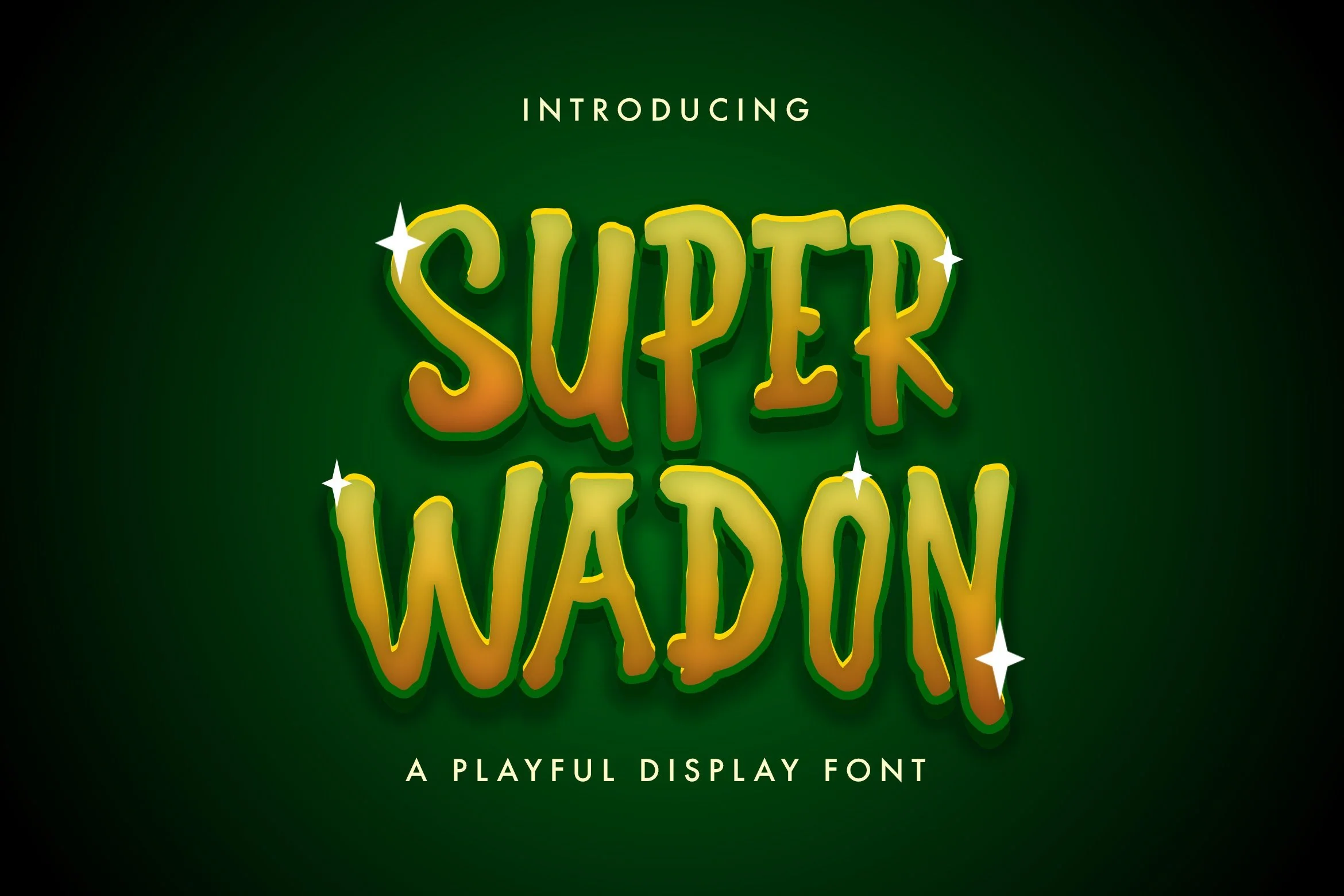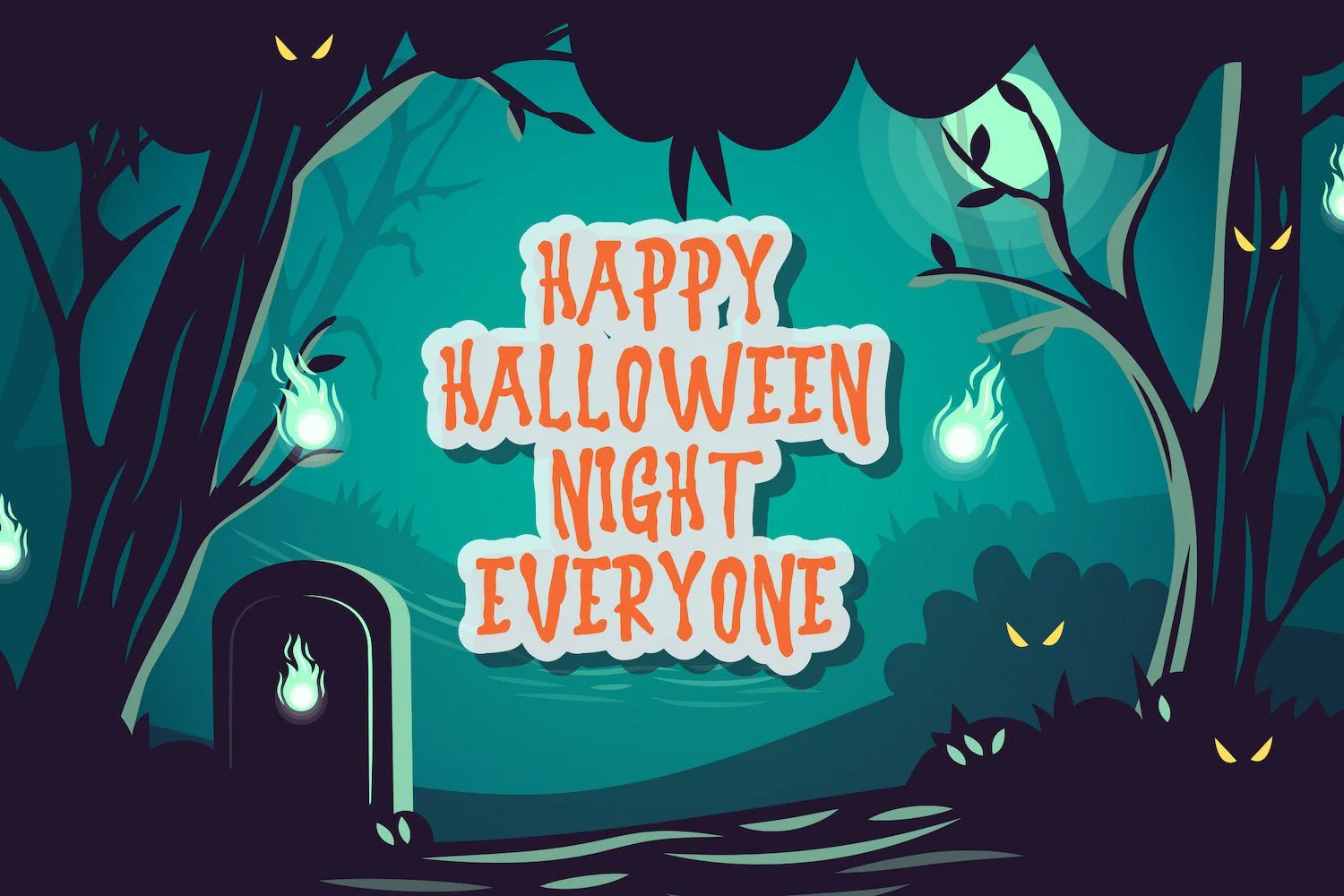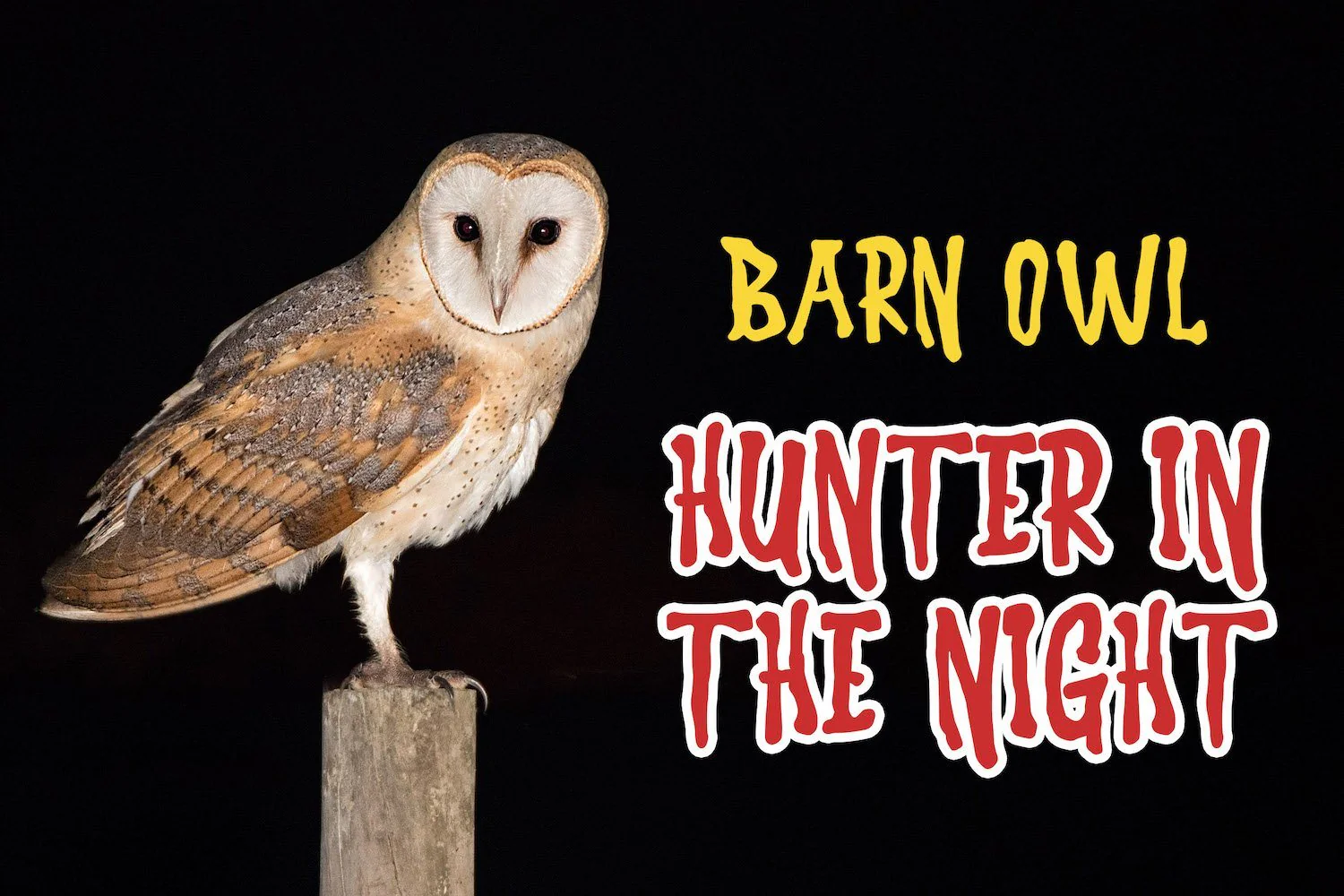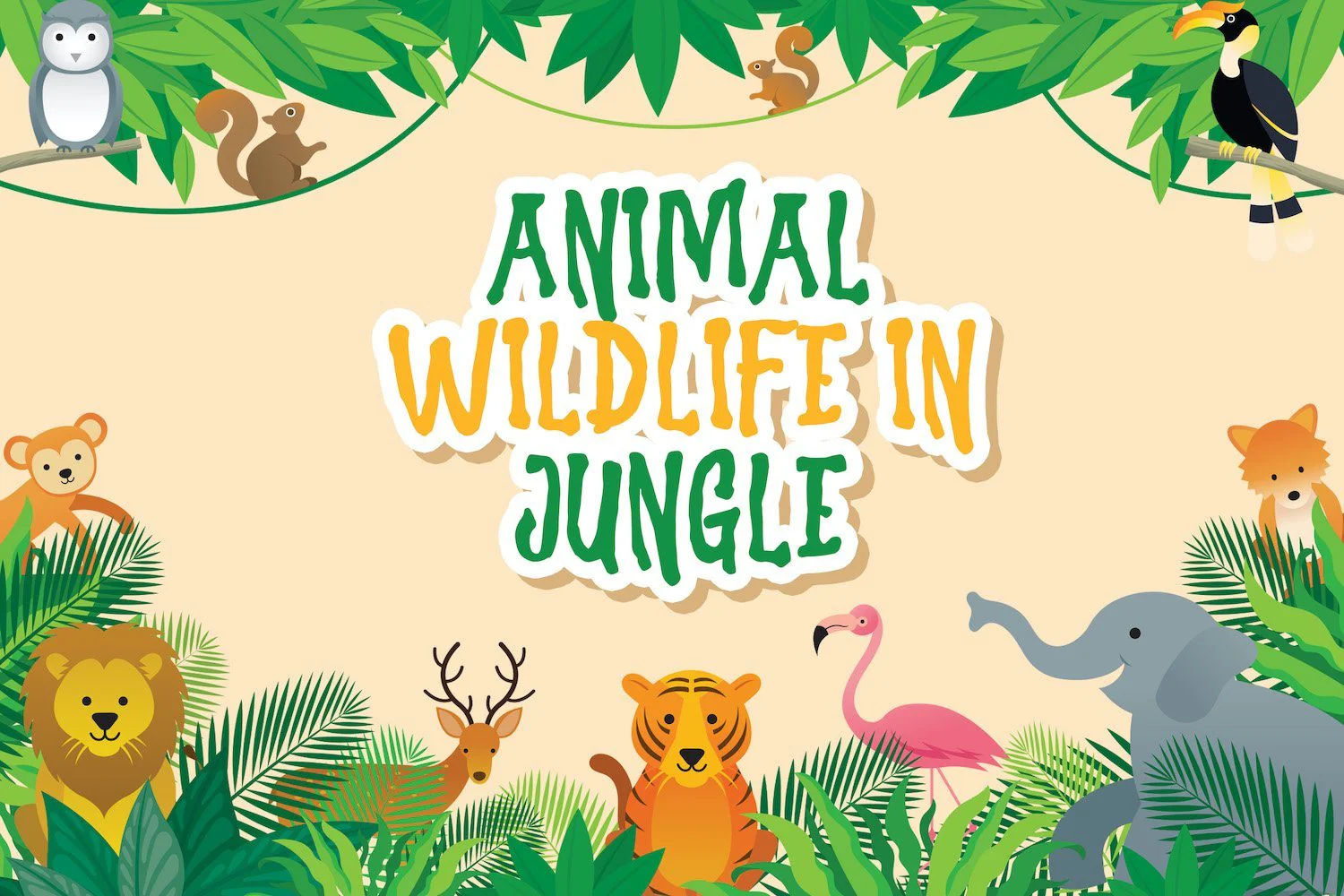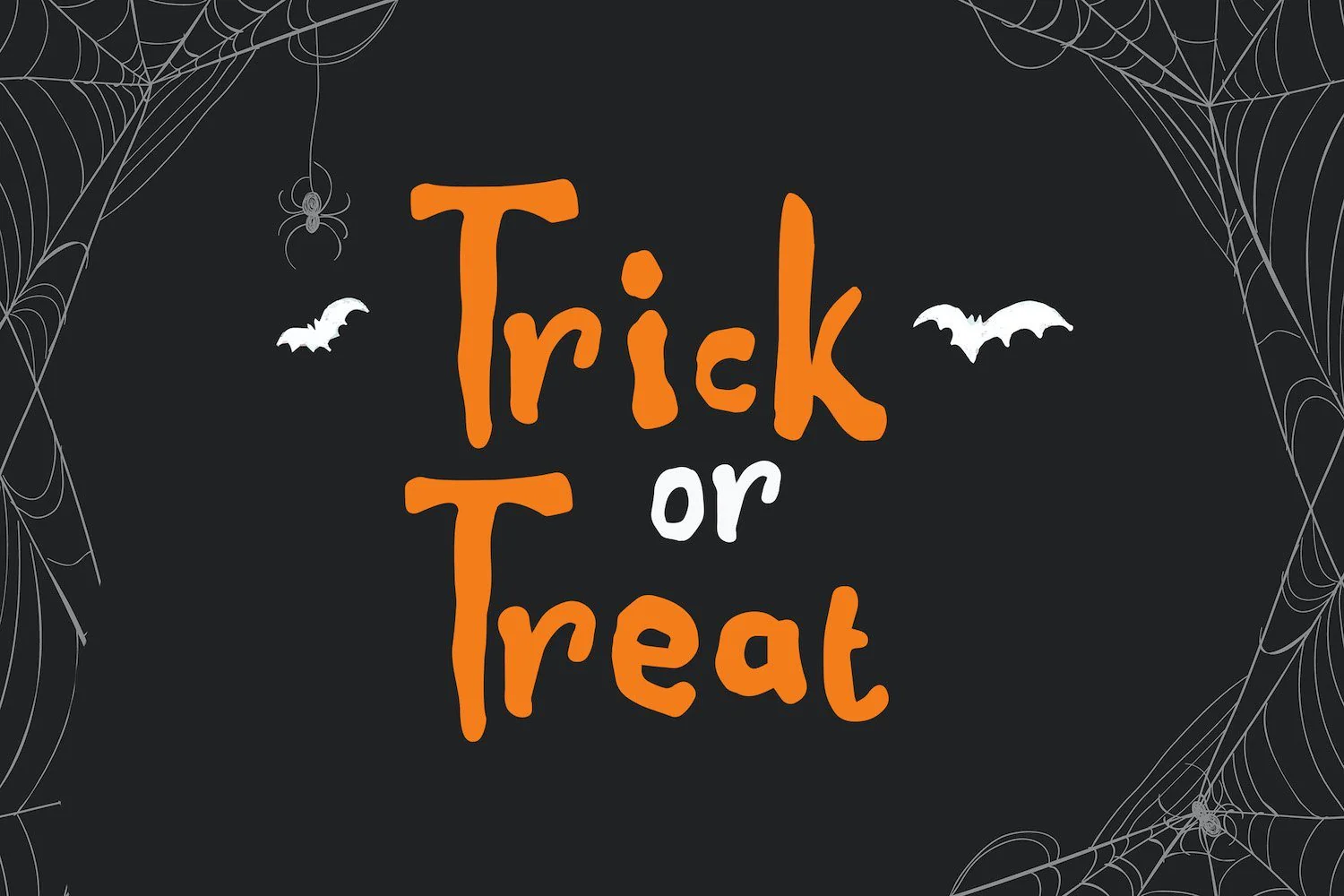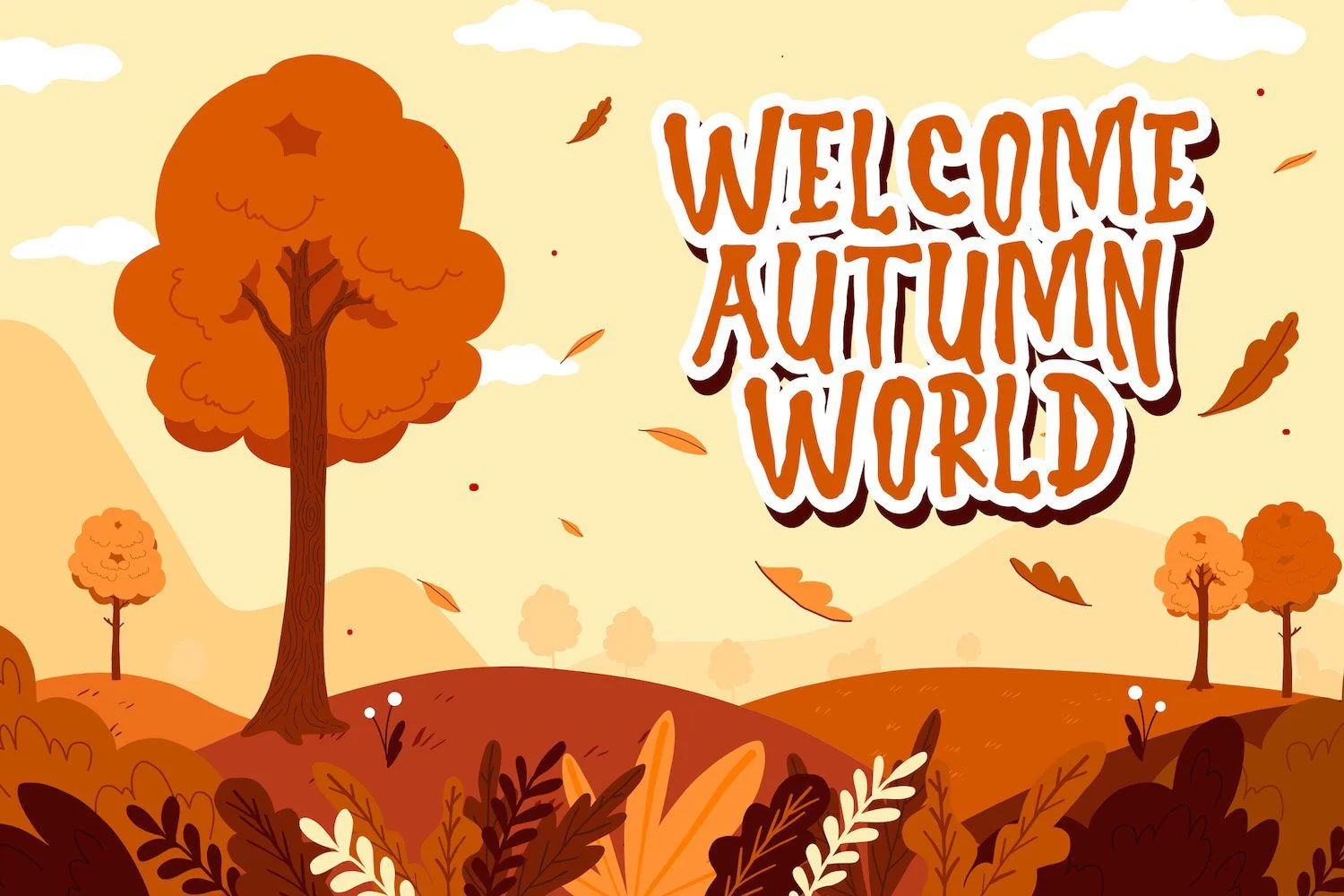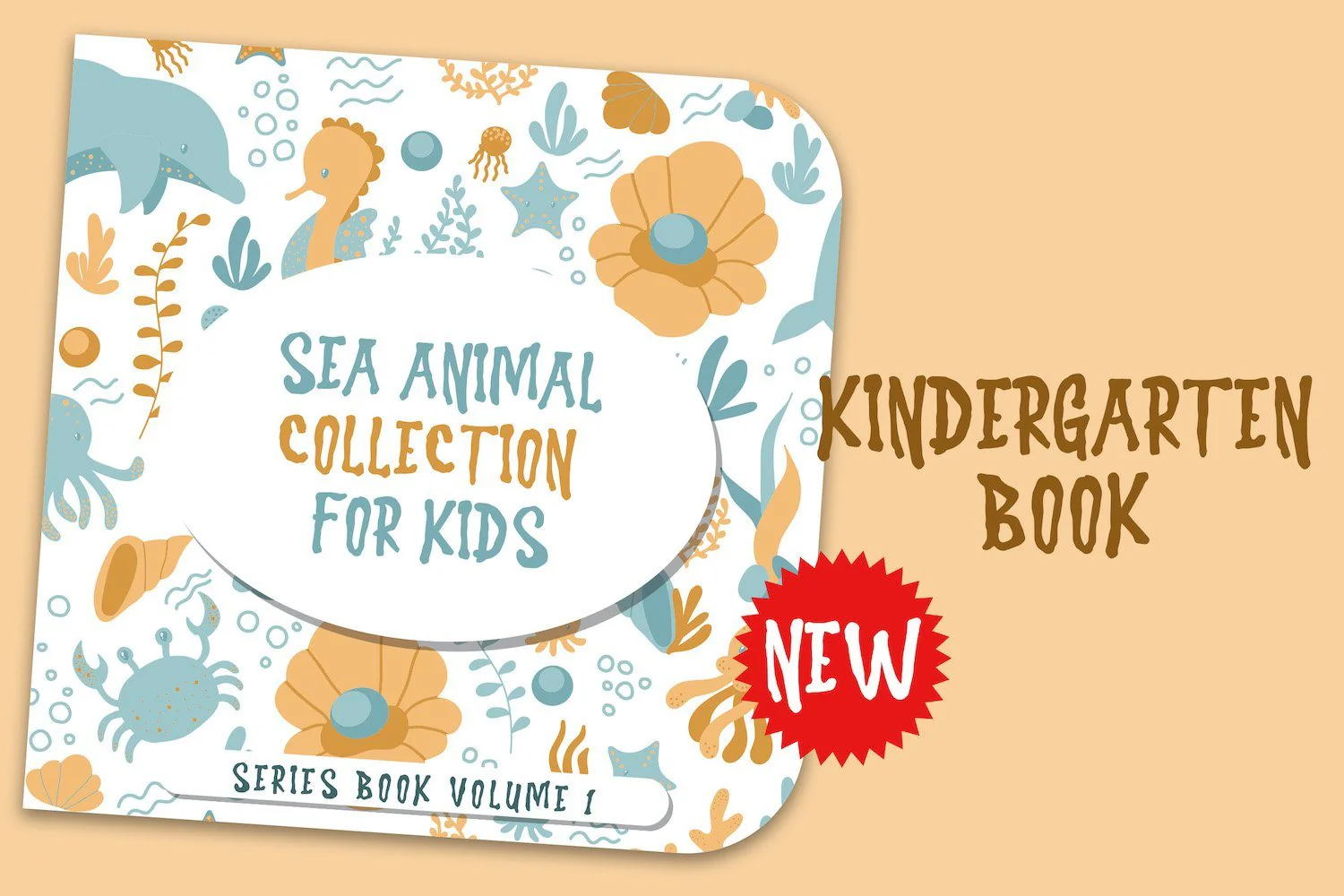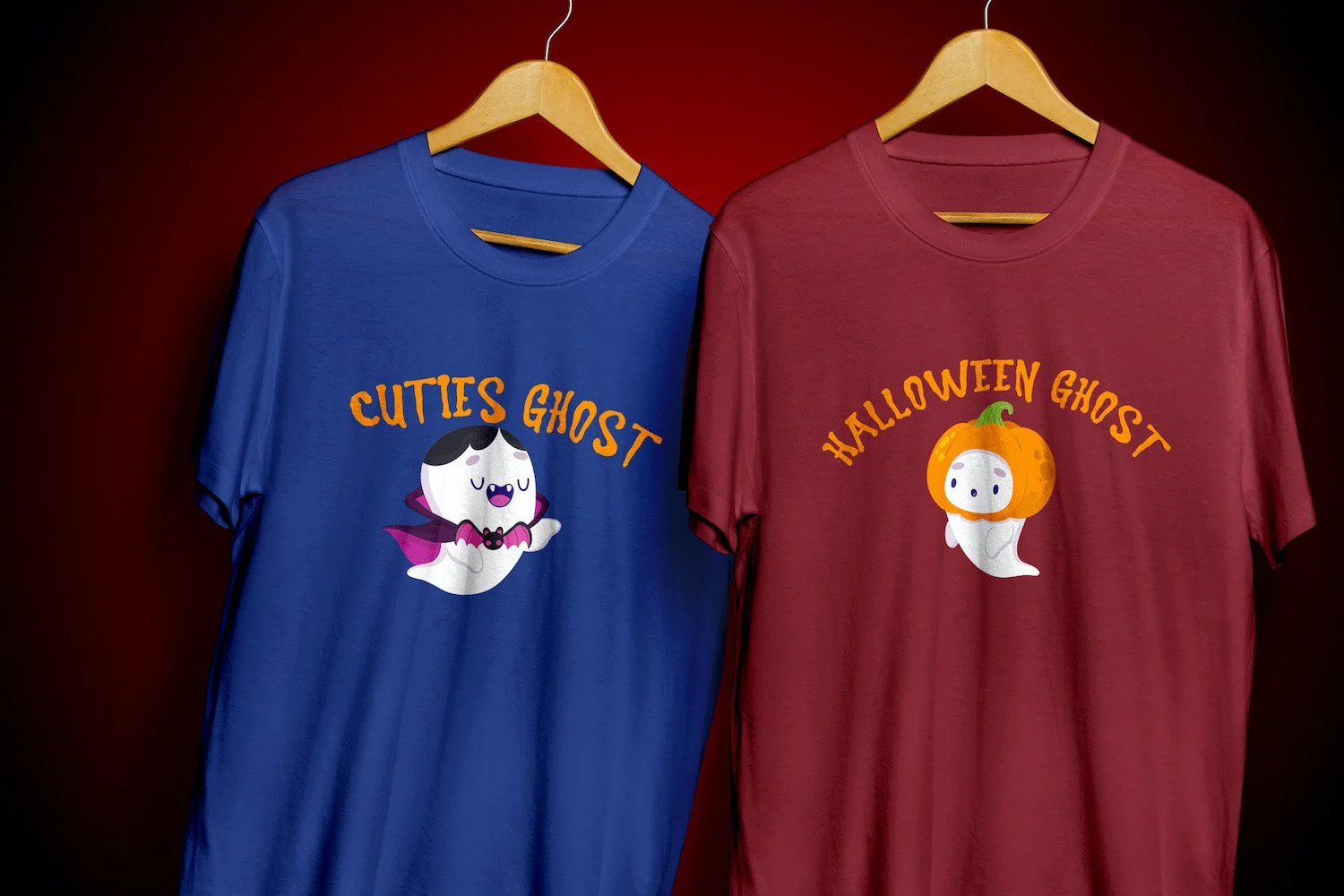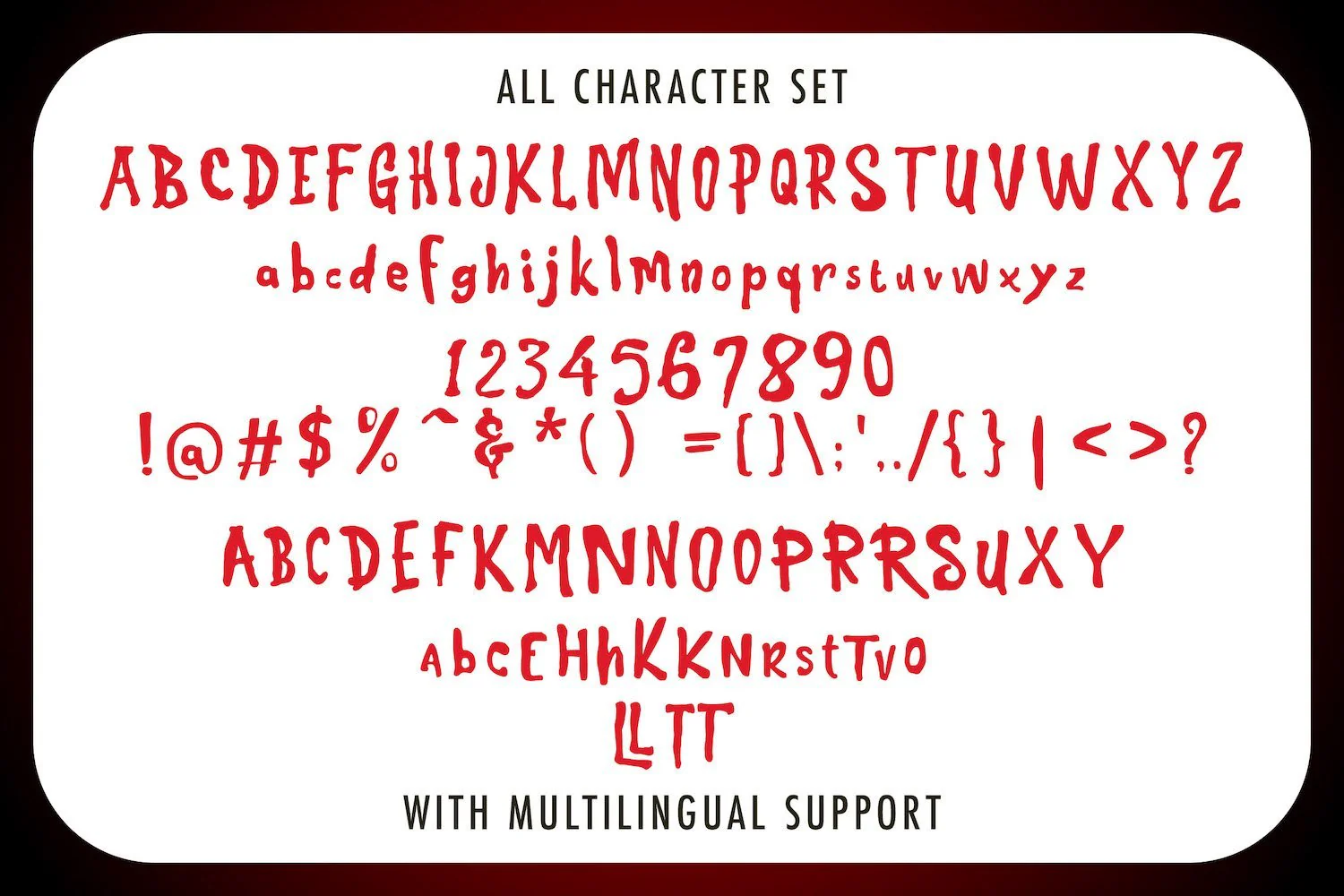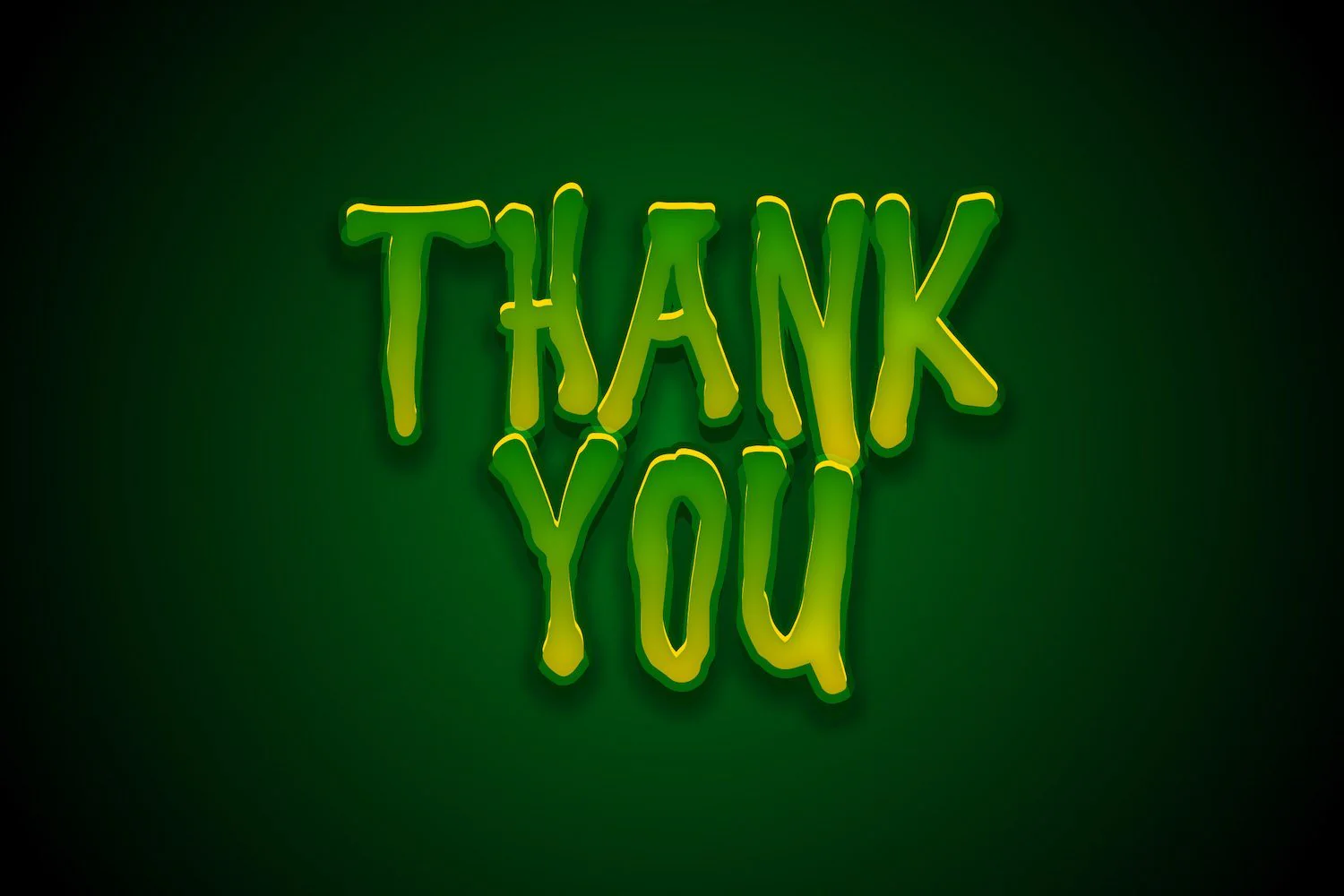
Super Wadon - Haunted Display Font
Introducing Super Wadon - Haunted Display Font
Super Wadon haunted and playful display font. It features a spooky feel that makes it perfect for any project that requires a horror-theme. Use it for movies, flyers, posters, crafting and much more!
Introducing Super Wadon - Haunted Display Font
Super Wadon haunted and playful display font. It features a spooky feel that makes it perfect for any project that requires a horror-theme. Use it for movies, flyers, posters, crafting and much more!